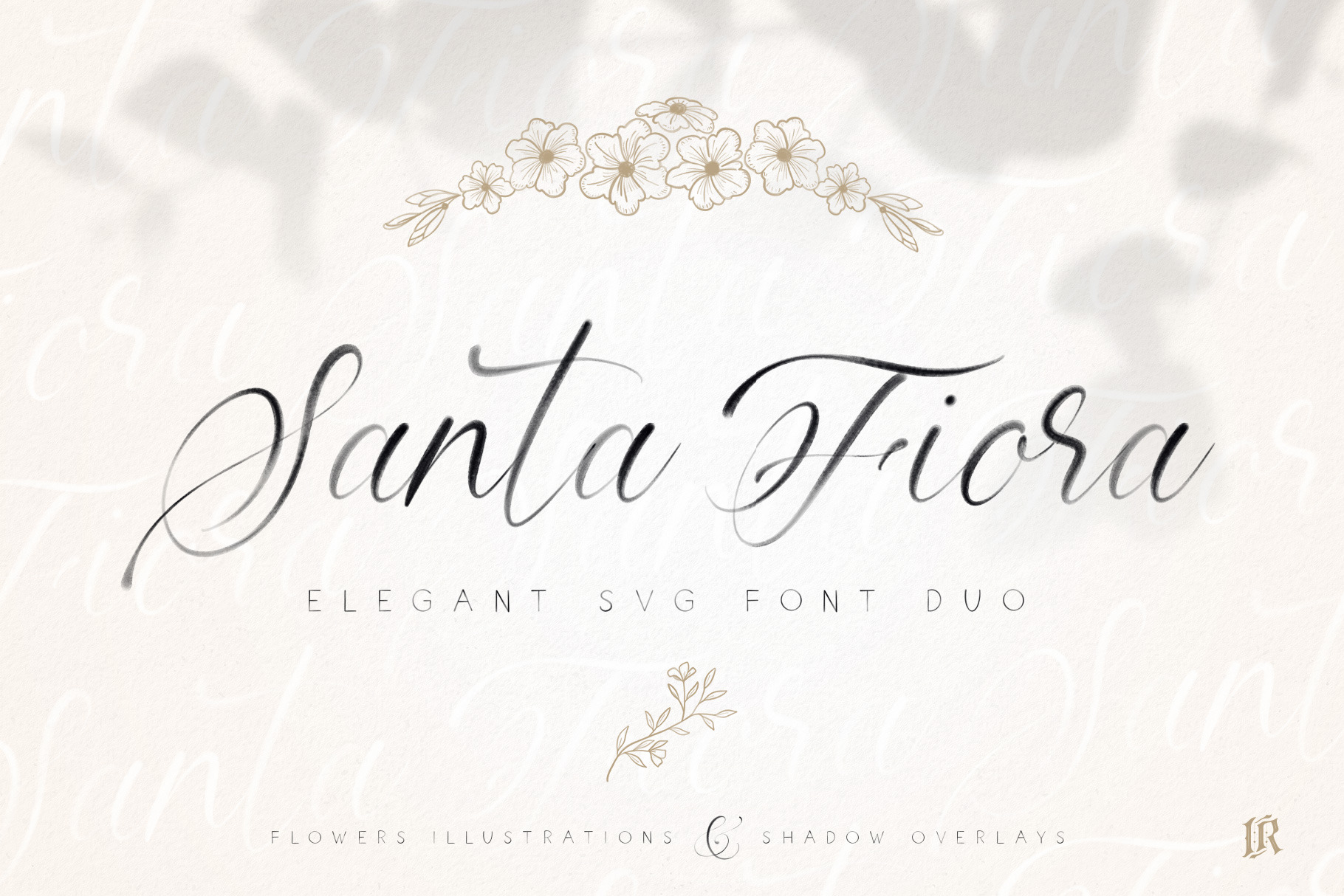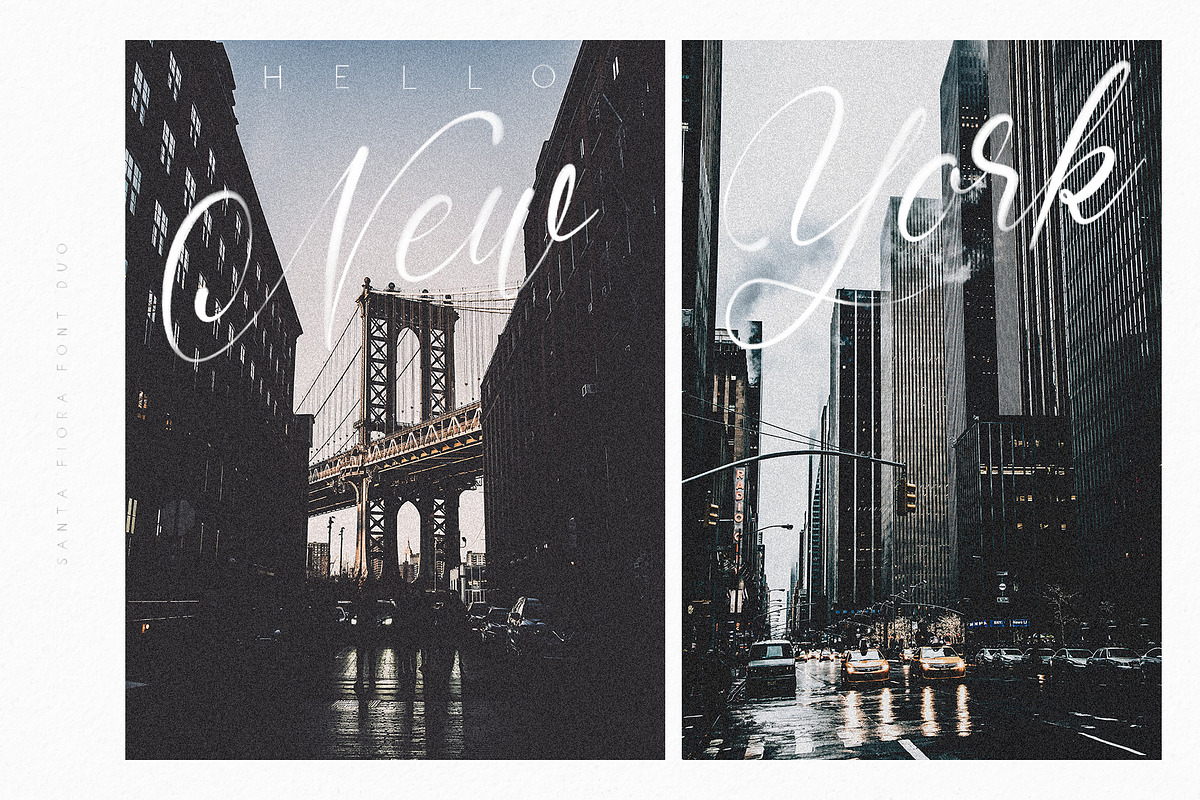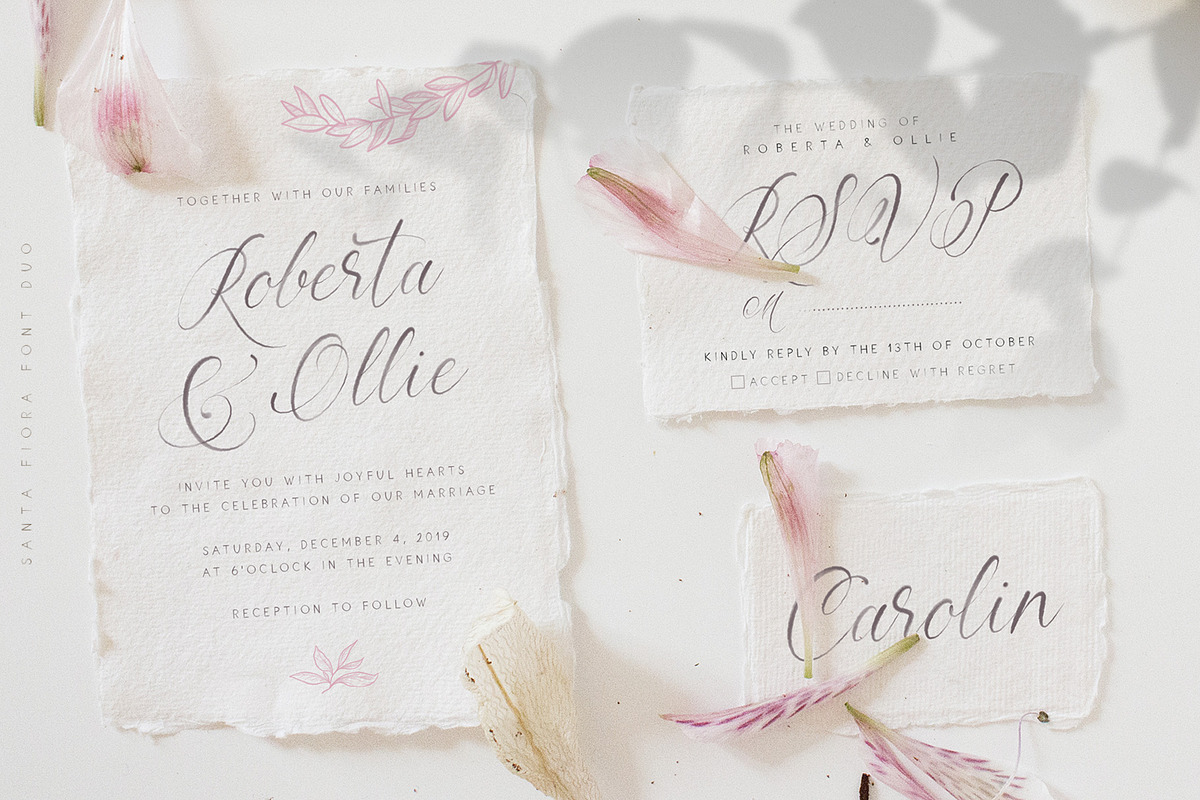
Santa Fiora SVG Font Duo
Introducting the new elegant font duo Santa Fiora SVG, hand lettered fonts with watercolor effect. Santa Fiora comes in SVG and “normal” vector version. SVG font preserves all the high definition detail of the original handwritten letters. Using OpenType-SVG technology it truly looks realistic.
- Santa Fiora Script SVG Font - A high definition OpenSVG brush font with realistic watercolor texture (You need to be using Photoshop CC 2017.1.1, Illustrator CC 2018 or later)
- Santa Fiora Sans SVG Font - A high definition OpenSVG brush font with realistic watercolor texture (You need to be using Photoshop CC 2017.1.1, Illustrator CC 2018 or later)